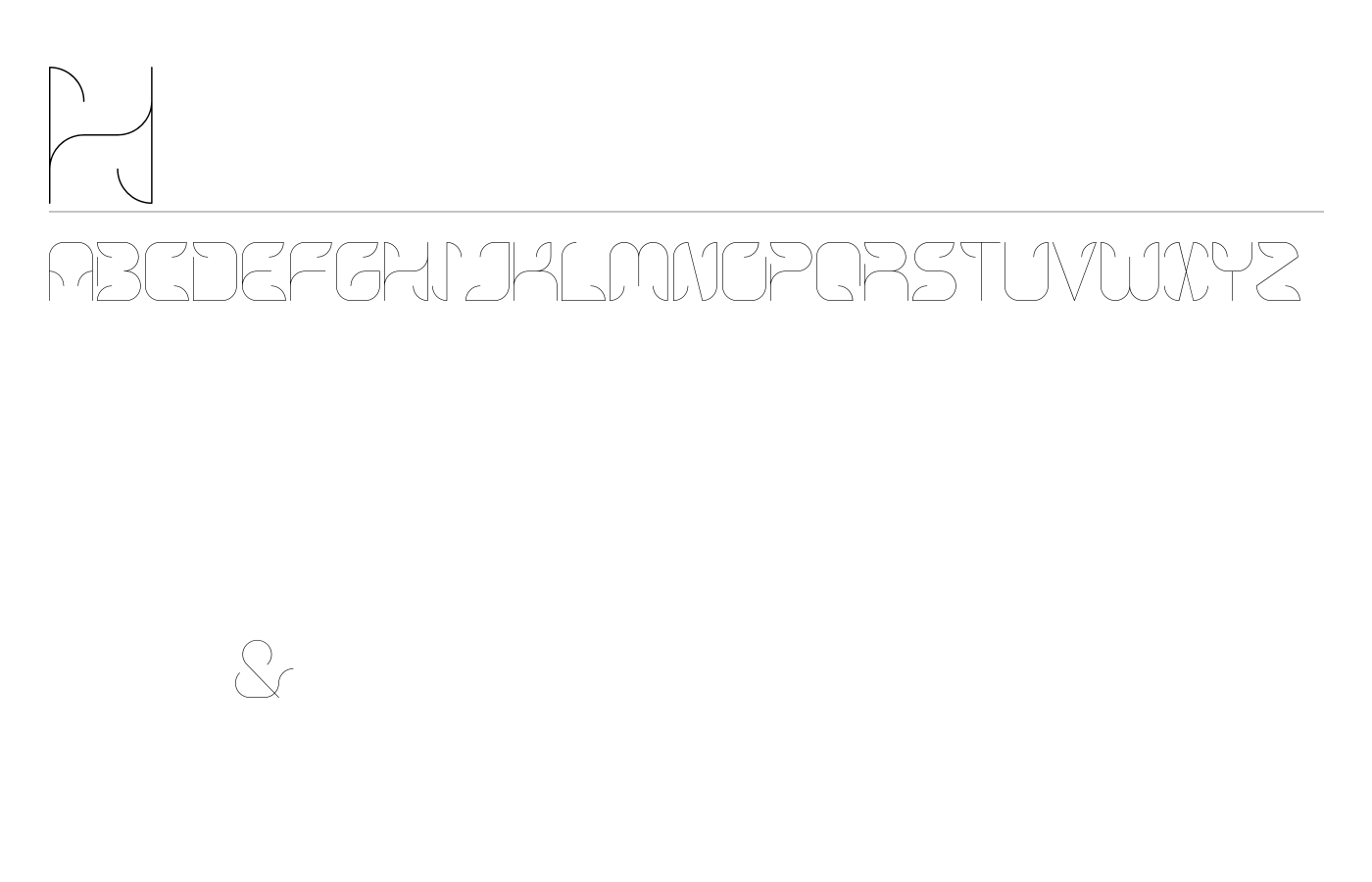
Hooky Font is a modern, ultra-light sans serif with a unique geometric and abstract style characterized by delicate, curved hooks and sharp angles. Its airy, minimalist letterforms convey a futuristic and artistic vibe, making it ideal for creative logos, high-end branding, and contemporary editorial designs that require distinctive flair and elegance. This font works best where a sleek, eye-catching look is desired, especially in headlines or display use where its intricate design can truly stand out.
Hooky Font